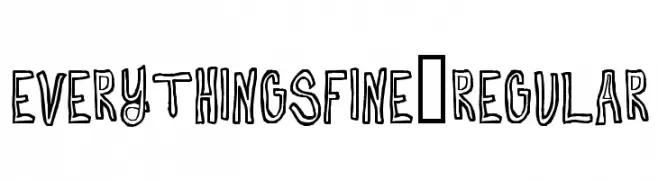
A bold, high-contrast font with tall, narrow characters and elongated serifs.
A decorative and artistic font with elegant swirls and loops.
A delicate serif font with thin, elongated strokes and subtle serifs.
A bold, condensed font with an Art Deco style and high contrast strokes.
A bold, geometric font with Art Deco influences, featuring unique circular patterns.
A bold, angular font with sharp, geometric shapes for a striking appearance.
A bold, geometric font with industrial and mechanical influences.
A bold, geometric font with a modern and impactful design.
A decorative script font with a ribbon-like, flowing style and high contrast strokes.
A tall, narrow, and bold font with tight spacing and a modern aesthetic.
A bold, condensed font with tall, narrow characters for dramatic impact.
A bold, decorative font with tall, narrow characters and pronounced serifs.
A bold, jagged font with sharp, irregular edges for a dynamic and edgy look.
A geometric, futuristic font with a maze-like, angular design.
A playful, bold, and hand-drawn font perfect for creative and lively designs.
A bold, playful, hand-drawn font with outlined characters.
A bold, retro-inspired font with a striped pattern and geometric structure.
A decorative and artistic font with intricate, whimsical letterforms.
A playful, hand-drawn font with a bold, sketch-like texture.
A playful, handwritten font with dynamic strokes and a casual style.
A tall, narrow, hand-drawn font with a playful, artistic style.
A distressed, vintage font with a hand-crafted, organic feel.
A bold, geometric font with a modern and playful style.
A bold, textured decorative font with a grunge effect, perfect for modern designs.
A bold, playful handwritten font with rounded, uneven strokes.
A playful, rounded font with a hand-drawn, whimsical style.
A bold, decorative font with intricate floral patterns in each character.
A playful, handwritten font with a casual and informal style.
A bold, decorative font with atomic motifs for a futuristic look.